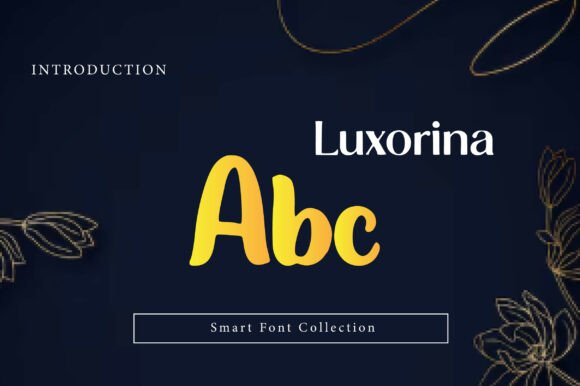
Introduction to Luxorina Font Font
Fonts play a crucial role in design, and the Luxorina Font font is a typeface that brings both character and versatility to any project. Whether you’re working on a branding project, a website, or a print design, the Luxorina Font font offers a unique style that can elevate your work.
Luxorina is a modern, elegant, and stylish serif display font designed to bring a premium and sophisticated touch to your typography.
With its smooth curves, balanced proportions, and refined serif details, this typeface is perfect for high-end branding, editorial layouts, and luxury design projects Created with a clean yet classy aesthetic, Luxorina works beautifully for fashion logos, beauty branding, magazine titles, wedding invitations, product packaging, boutique labels, and premium advertisements.
Key Features of Luxorina Font Font
Why Choose Luxorina Font Font?
The Luxorina Font font is more than just a typeface – it’s a design tool that helps you communicate your message with style and clarity. Its unique character set and versatile design make it suitable for a wide range of applications, from elegant invitations to bold headlines.
With its carefully crafted letterforms and balanced proportions, the Luxorina Font font ensures readability and visual appeal across all mediums.
What makes Luxorina Font font special?
The Luxorina Font font stands out with its unique design, exceptional readability, and versatility across various design applications.